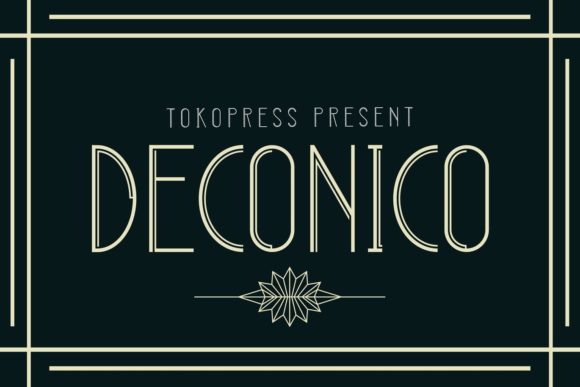
Introducing Deconico Font: The Ultimate Typographic Masterpiece for Your Creative Endeavors
Deconico, a stunning display font crafted by the visionary minds at tokopress.fonts, is a typographic odyssey that transcends the boundaries of ordinary fonts. This font is a symphony of clean lines, perfectly balanced curves, and a captivating personality that will make your designs sing.
Unlock a World of Creative Possibilities with Deconico Font:
Transport Your Designs to the Next Level: Deconico's versatile design seamlessly adapts to a wide range of creative projects, from eye-catching t-shirts and sportswear to captivating logos, advertisements, and clothing. Unleash your imagination and let Deconico elevate your designs to new heights of visual appeal.
Make a Statement with Every Character: Deconico's meticulously crafted characters command attention with their bold and confident presence. Each letter is a work of art, conveying a sense of sophistication and style that will leave your audience spellbound.
Become a Master of Visual Storytelling: With Deconico, your designs will transcend mere aesthetics and become powerful storytelling tools. This font's inherent charm and charisma will captivate your audience, drawing them into your visual world and leaving a lasting impression.
Deconico: The Perfect Font for YouTube Logos:
Ignite Your YouTube Channel with Deconico: Deconico is the ultimate font choice for creating YouTube logos that radiate personality and professionalism. Its clean lines and eye-catching curves will ensure your logo stands out from the crowd, attracting viewers and leaving a lasting impression.
Convey Your Brand's Essence with Deconico: Whether your YouTube channel focuses on gaming, beauty, technology, or lifestyle, Deconico's adaptability makes it the perfect font to convey your brand's unique message and values.
Embrace Deconico and Transform Your Creative Journey:
Experience the Deconico Difference: Deconico is not just a font; it's a gateway to a world of creative possibilities. With its versatility, captivating design, and suitability for YouTube logos, Deconico is the ideal choice for designers, content creators, and entrepreneurs who seek to elevate their projects to new heights.